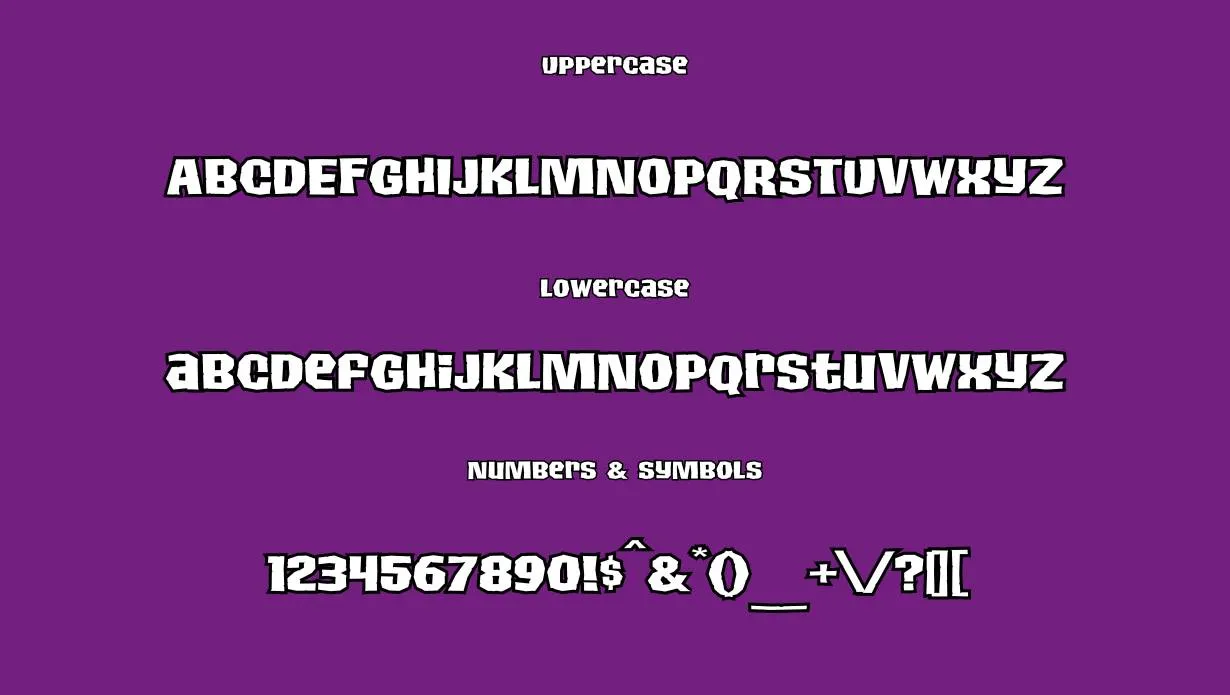
The Survivor font, with its bold and sturdy appearance, resonates well with adventure-related designs, motivational content, or sports-related graphics. It usually comes in a bold weight and a standard width, ensuring clear visibility and impact in its display.
| Name | Survivor Font |
| Designer | Tepid Monkey |